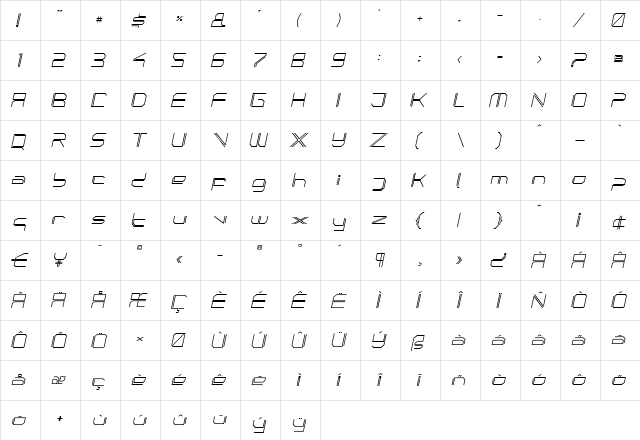
PhutureSqrdOpen Italic Font Preview
PhutureSqrdOpen Italic
PhutureSqrdOpen Italic Font Details
Design Context for PhutureSqrdOpen Typeface
PhutureSqrdOpen takes a measured approach to typography — its balanced proportions and neutral character make it a reliable workhorse for both digital and print work. The slanted form adds forward momentum and visual energy.